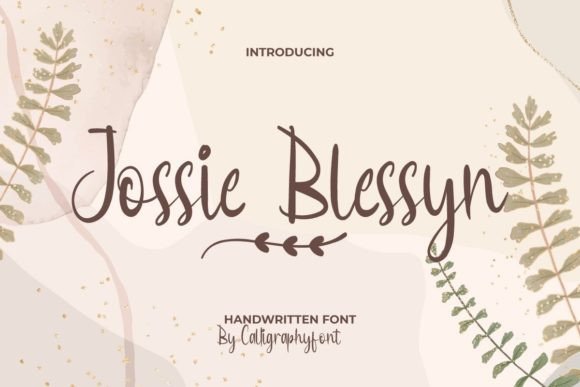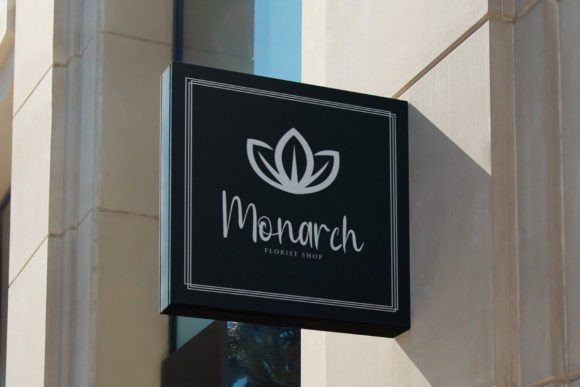
About Jossie Blessyn Font
Jossie Blessyn Font is a beautiful calligraphy script that stands out with its elegant and varied ligatures and swashes. This sophisticated handwritten font adds a touch of uniqueness and authenticity to any design project.
Elegant Ligatures and Swashes
One of the main features of Jossie BlessynFont is its variety of ligatures and swashes. These design elements add flair and sophistication to your typography. They enhance the flow and appearance of the text, making your work more visually appealing and memorable.
Versatile Applications
This font suits a broad range of creative needs. Use it for blog headers to make a stylish first impression. It works in the fashion and cosmetics industry branding, as well as on product and logos. It’s ideal for homeware and interior design projects, adding a refined touch. Moreover, Jossie Blessyn is perfect for invitations, weddings, signage, and quotes, the elegance of every detail.
Why Choose Jossie Blessyn Font?
Choosing Jossie BlessynFont means selecting a font that balances beauty and authenticity. Its unique style brings and charm to your projects, helping your designs stand out with a feel. This font is a must-have for designers who want to infuse into their creative work.